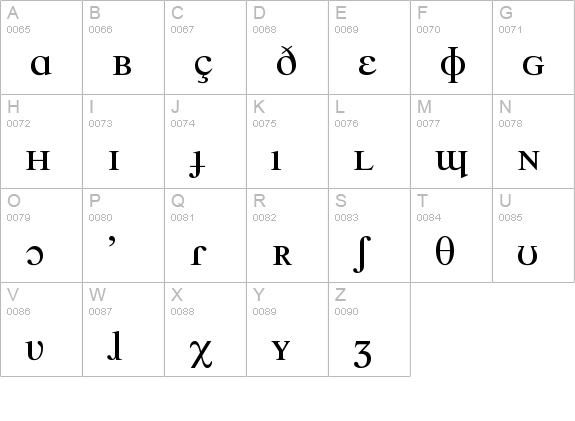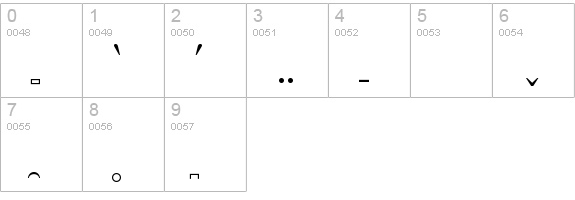
Introducing Times Phonetic IPA font, an invaluable tool for linguists, language enthusiasts, and anyone who wants to accurately transcribe and study phonetics. This meticulously crafted font is designed to perfectly represent the International Phonetic Alphabet (IPA), a system used worldwide to symbolize the sounds of human speech. Times Phonetic IPA font not only offers unparalleled clarity and accuracy in displaying IPA symbols, but it also showcases a harmonious blend of elegance and readability. Each character has been meticulously crafted to ensure optimal legibility, making it a breeze to analyze and decipher the intricate nuances of different phonetic sounds. With its comprehensive range of IPA symbols, Times Phonetic IPA font covers all the bases, allowing you to effortlessly represent a vast array of sounds from various languages. Whether you are a linguistics professor, a student, or a language enthusiast, this font will be your go-to resource for phonetic transcription, research, and analysis. But what truly sets Times Phonetic IPA font apart is its accessibility. It is freely available to download at FontsMarket.com, a reputable platform known for its wide selection of high-quality fonts. This means that you can easily obtain this invaluable tool without any cost, enabling you to enhance your linguistic pursuits without breaking the bank. Don't settle for subpar representations of IPA symbols or struggle with deciphering illegible transcriptions. Download Times Phonetic IPA font today and experience the unparalleled convenience, accuracy, and elegance it provides. Whether you are conducting academic research, learning a new language, or simply exploring the fascinating world of phonetics, this font will become an indispensable asset on your journey.